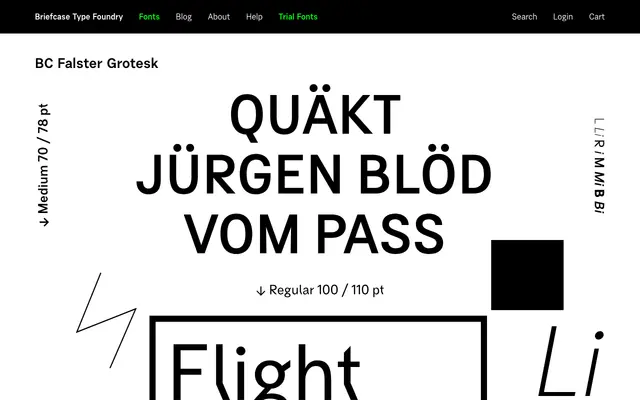
BC Falster Grotesk
A grotesque sans-serif from Briefcase Type Foundry with a name suggesting Scandinavian influence.
BC Falster Grotesk is a grotesque sans-serif released by Briefcase Type Foundry. The name references Falster, a Danish island, hinting at a Northern European design sensibility. Little additional detail was available from the page at time of capture.
The name and foundry context point to a grotesque sans-serif; the 'Grotesk' suffix confirms the subcategory directly.